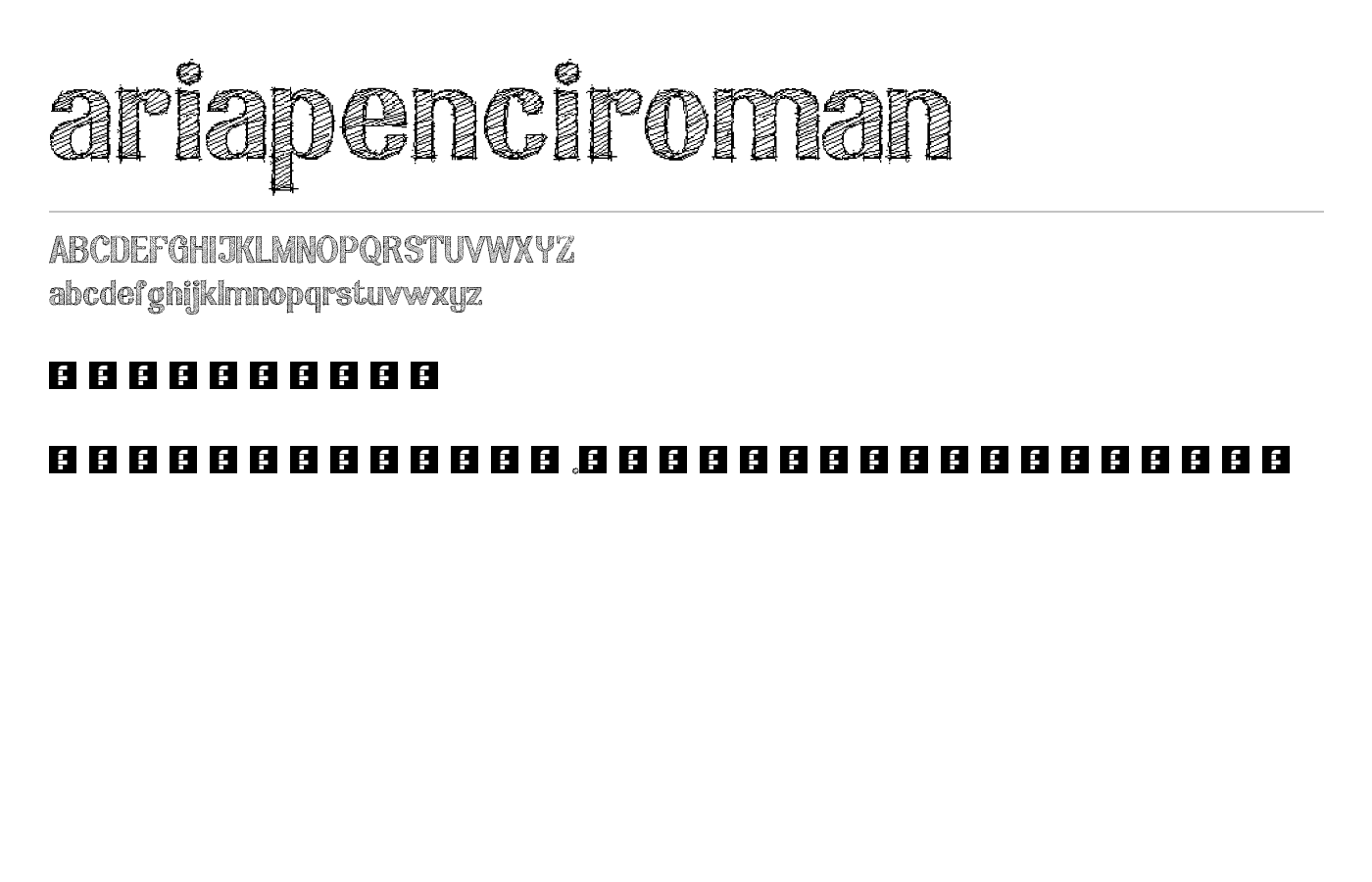
Ariapenciroman is a unique serif font with a hand-drawn, sketch-like texture that gives it a creative and informal feel. Its regular weight and moderate contrast combined with fine serifs make it suitable for artistic projects, packaging, and headlines where a personal, crafted touch is desired. This font works best for designs seeking a playful yet elegant expression, such as in fashion branding or editorial layouts that want to stand out with a distinct, textured look.
ariapenciroman Font
About ariapenciroman Font